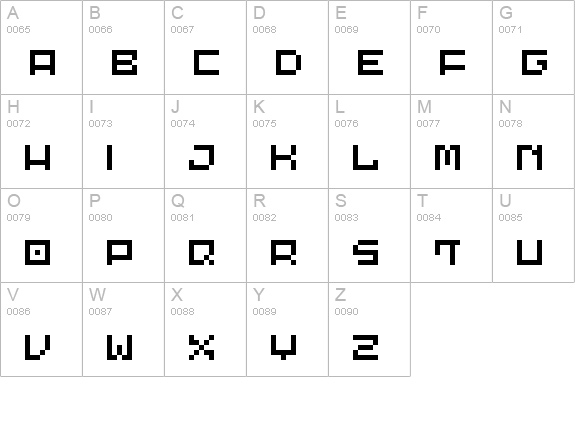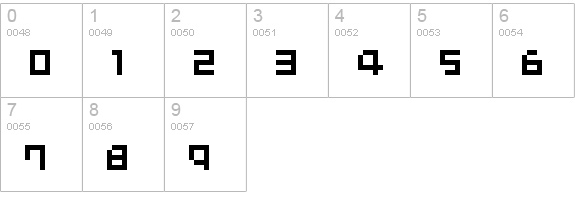
Common Pixel Font Details
Introducing Common Pixel, a versatile and modern font that is perfect for a wide range of design projects. This unique typeface features clean lines and a contemporary aesthetic, making it ideal for both digital and print applications. Common Pixel is designed to be easily readable while also adding a touch of sophistication to any project. One of the best things about Common Pixel is that it is completely free to download! That's right, you can access this stunning font at no cost on FontsMarket.com. Whether you're working on a website, poster, logo, or any other creative endeavor, Common Pixel is sure to elevate your design with its sleek and stylish appearance. Don't miss out on the opportunity to enhance your projects with this exceptional font. Download Common Pixel today and see for yourself how it can take your designs to the next level!